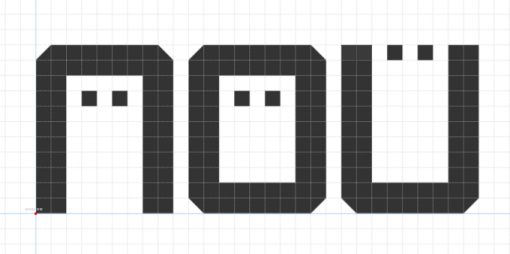
• Supposed to be fitting a sci-fi/industrial/dystopian scenario.
My first font. So suggestions for improvement are very much appreciated.
I really like all the letters, except the uppercase i. It just doesn't remind me of an i. Accents are really awesome though.
Waiting for more glyphs to appear :)
I like it.
@Cookielord: The "I" design is from old english-styled characters. It's common in Fraktur.
Given your choice for I, I would make J mirror it with a descender—or have an optional design. I think the umlauts (diaereses) would look better above the capitals.
Welcome to Fontstruct :) This first FontStruction is a neat sci-fi or electronic dispaly inspired design. TCWhite: diaresis above caps, ok but I wonder if to place them inside at top is more sci-fi ?
@ Aeolien: I like that idea. Removing the bar from A works well. I would place the U's at the same level as A and O, however, so that it balances design-wise. Personally, and preferentially, I would do the J, K, M, Q, W, i, j, k,l, m, and w, differently. For the K's, I would mirror the legs of X, the same for R. I would remove the right bottom of i, widen the M's and W's, and shorten the j and l. But, that's just me. :)
The proportions of the font are good. Yes, dropping the Ü diaresis to the height of Ä diaresis will look better.
I changed K, R, X, Z, k, x and z so they would fit better with the style.
And I replaced i with an older idea I had for it.
See, I want uppercase letters to be shaped like a square, lowercase letters just as wide, everything with a certain consistency.
I guess there are way better ways to design those letters, but I want to keep said consistency.
Wow, the font is even better than it was! Good job!
I changed even more, can't remember what, though. :D
I'm almost done, I think.
Looks good. :)